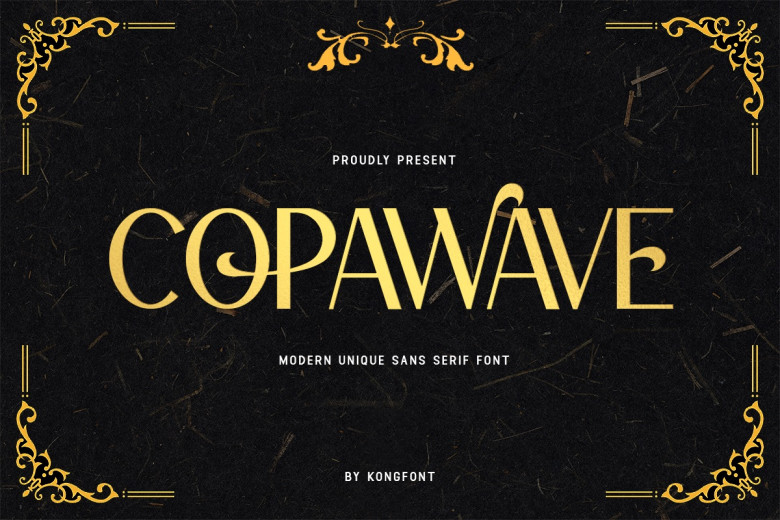
Copawave is a Modern Unique Sans Serif Font is a newly developed Sans Serif font that hit the market with a great look and feel which has been made with a little change in the curvature of the letter instead of the normal sans serif type fonts. This font is one of the fonts that give those who want to use a sans serif font, ways to do it. This is pleasant since if in the previous form there is an element of exaggeration, in the following form, we can see that there is no exaggeration in each of the letters of Copawave Font – Modern Unique Sans Serif Font. This font is simple and the shape is closest to the original letter as the shape of ‘A’ is concerned. Used in that style, this font is certainly readable. The given font will appear clean when combined with large font size.
The Copawave Font – Modern Unique Sans Serif Font is very versatile and has a high perceived utility particularly when used in branding a product. This font can be used for the advertising posters for brands, logo tattoos, and shops’ neon signs. In general, this font can establish a rather minimalist and fashionable look to the product combined. This font can be used in magazine’s covers and too in the book’s covers.
Copawave Sans Serif Font